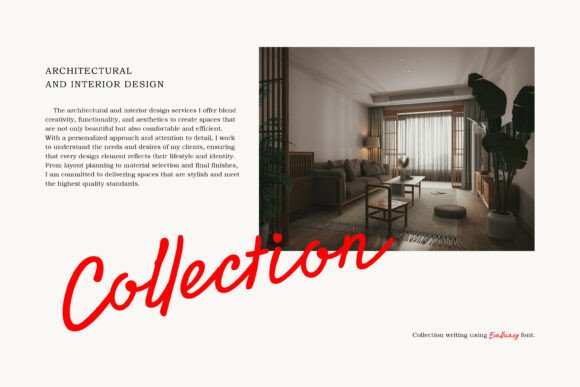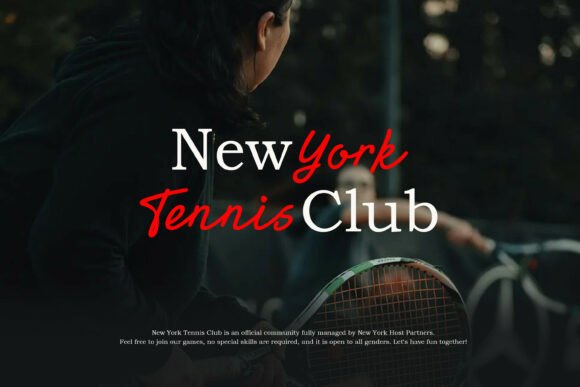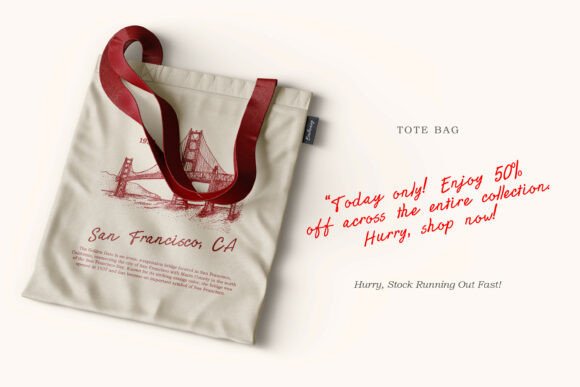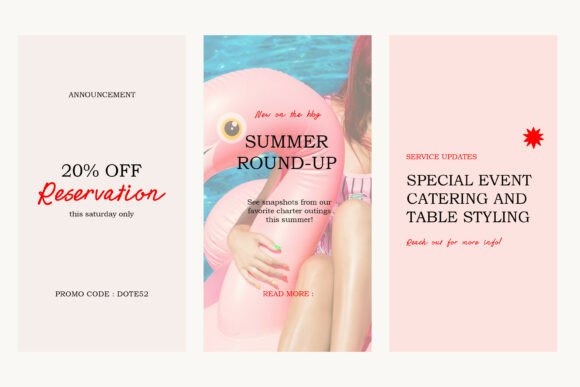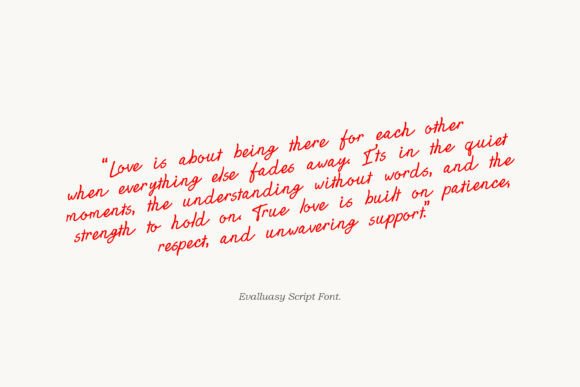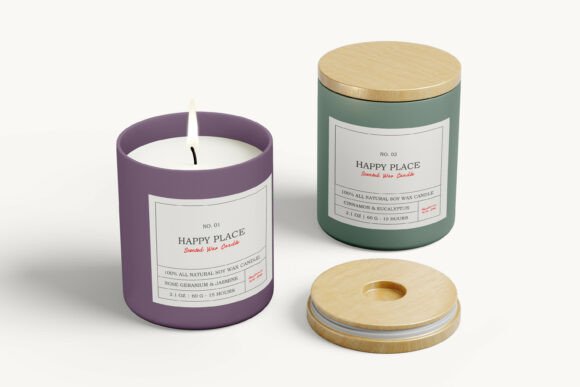
The Perfect Harmony of Style and Function
Have you ever sat at your desk, staring at a blank page, waiting for the perfect font to bring your design to life? You’ve tried a dozen different options, but none seem quite right. That’s when you stumble upon it – the perfect combination of style and function that elevates your entire design. For designers, finding that elusive font can be a game-changer. Enter the Evalluasy Font, a dynamic and elegant typeface that’s poised to revolutionize the world of visual communication.
Designed to convey a sense of fluidity and freedom, the Evalluasy Font features smooth curves and seamless connections that make it perfect for branding, logos, and digital media. Its bold and open shapes convey spontaneity while maintaining a clear structure, reflecting a balance between creativity and professionalism. Whether you’re working on a casual or formal project, the Evalluasy Font is the perfect choice for creating a lasting impression and easy recognition.
Evalluasy Font Key Features
- Unique Characteristics: This font features a distinctive, hand-drawn style with subtle irregularities and imperfections, giving it a unique and organic feel.
Evalluasy Font Review
Initially, I was drawn to Evalluasy Font due to its unique aesthetic. ✨ The font’s geometric shapes and organic feel make it stand out from more traditional fonts. It’s perfect for designers looking to add some visual interest to their projects.
However, there are some limitations to consider. ⚠️ The font’s character set is not as extensive as some other fonts, which may limit its usability in certain situations. Additionally, the font’s geometric shapes can sometimes make it difficult to read, particularly at smaller font sizes.
Overall, I’d say Evalluasy Font is a great choice for designers looking to add some visual flair to their projects. While it may not be the most versatile font, its unique aesthetic and high-quality rasterization make it a solid addition to any design toolkit.
Tips for Getting the Most Out of Evalluasy Font
For optimal results, use Evalluasy Font in conjunction with bold and italic text to create visual interest.
Experiment with different font sizes and styles to create a unique look.
Evalluasy Font is ideal for:
Headlines and titles
Brand logos and identities
Marketing materials and advertising
Alternatives to Evalluasy Font
Evalluasy Font is a unique, handwritten font often used in creative and artistic projects. Here are a few alternatives for designers:
Great Vibes is a modern, handwritten font perfect for creating a fun and carefree atmosphere. It’s ideal for use in advertising, social media, and other projects where a playful tone is desired. Compared to Evalluasy Font, Great Vibes has a more relaxed and casual feel, making it a great choice for projects that require a lighthearted touch.